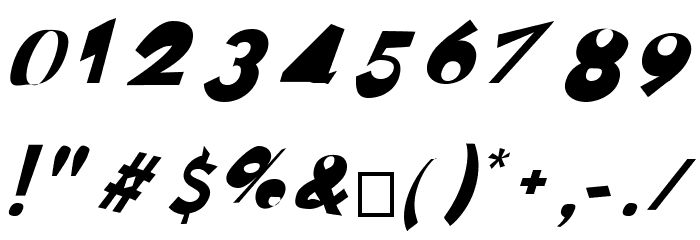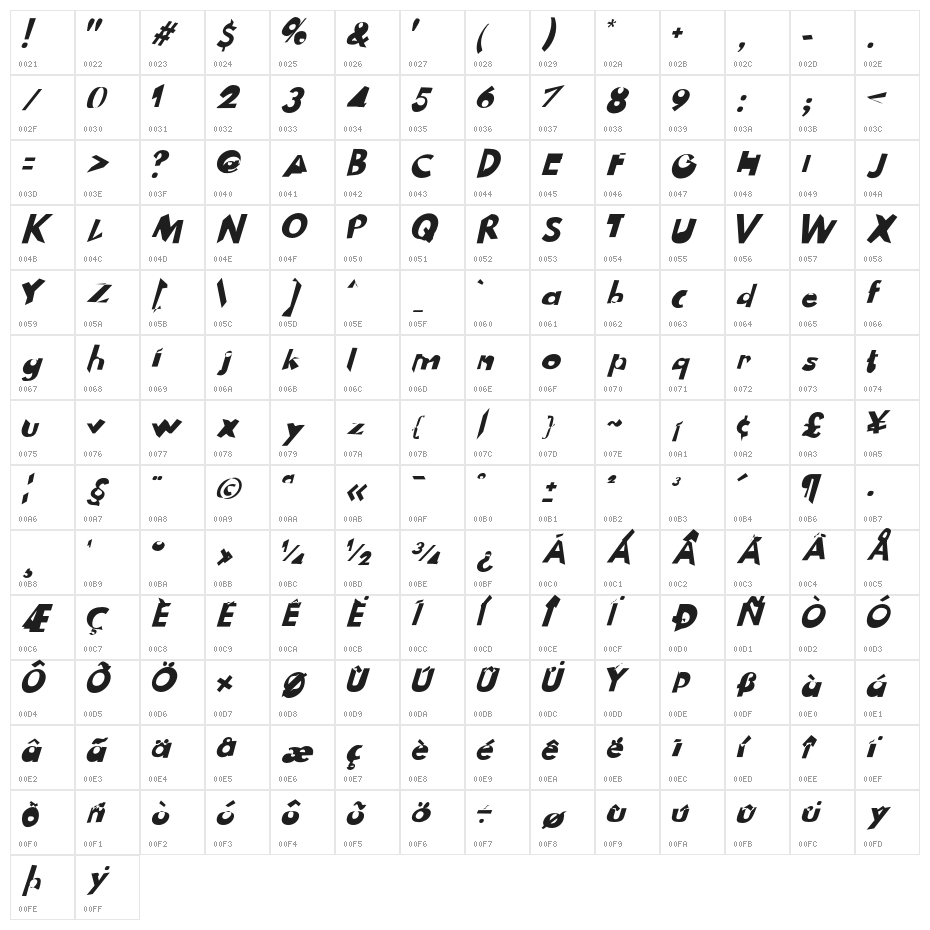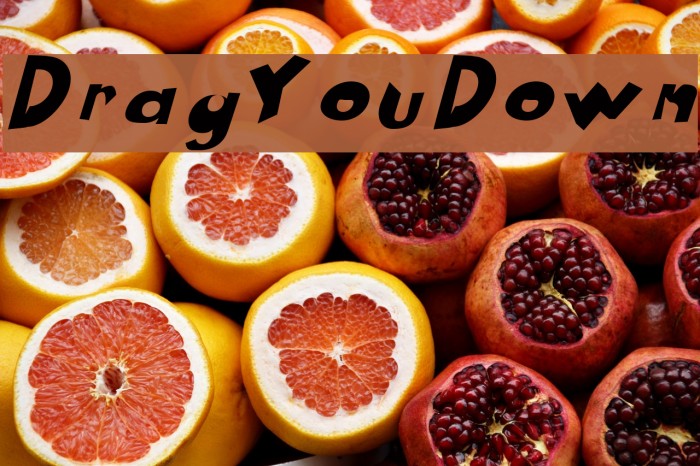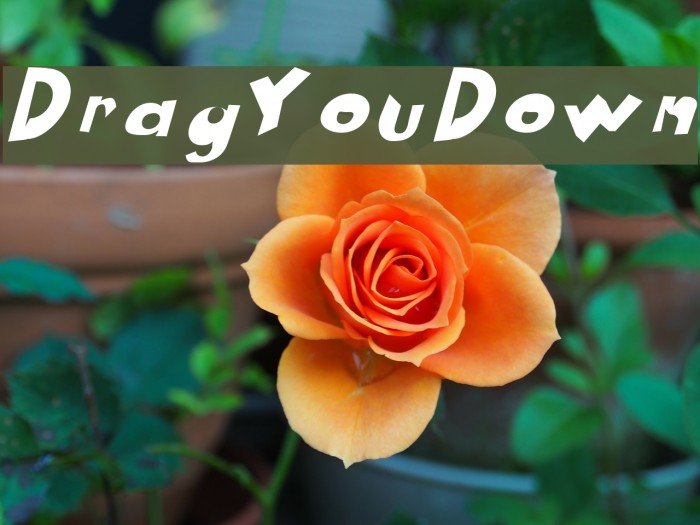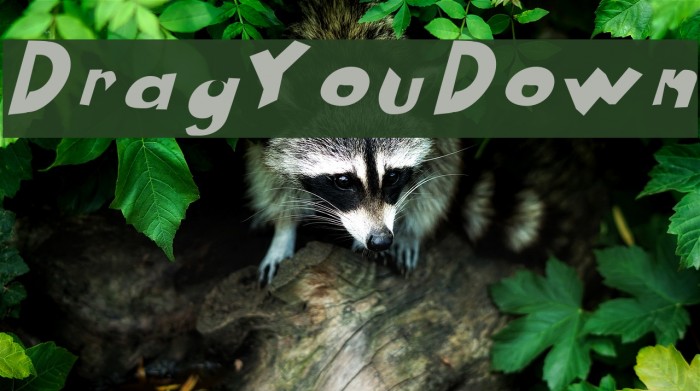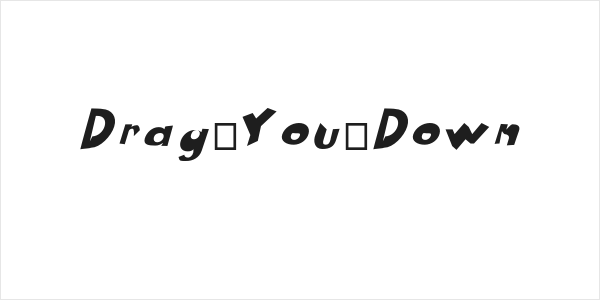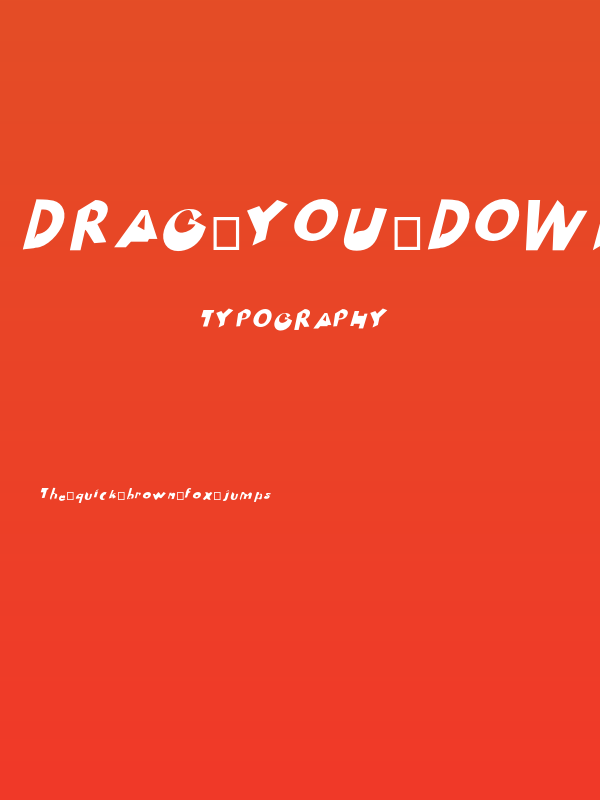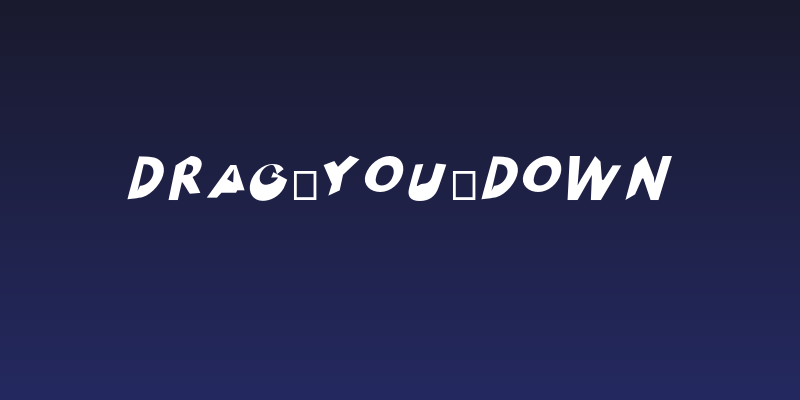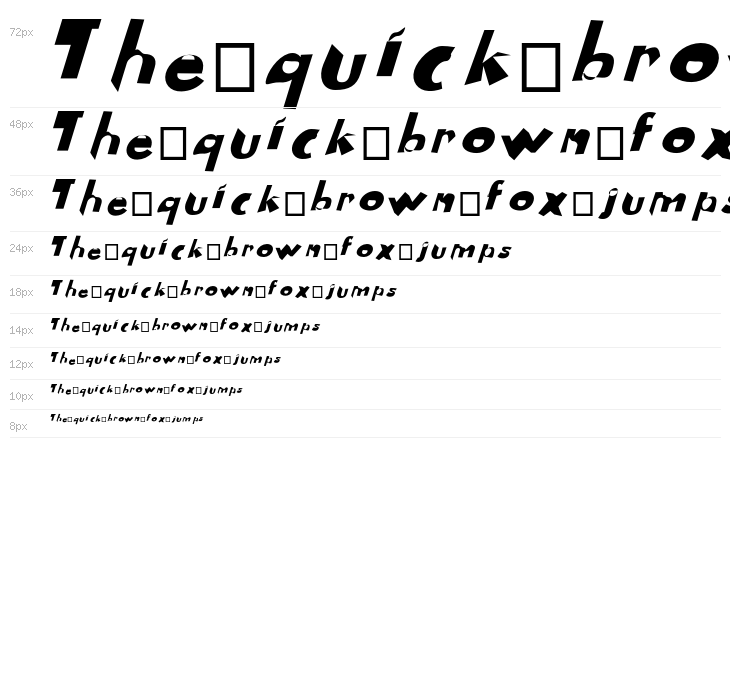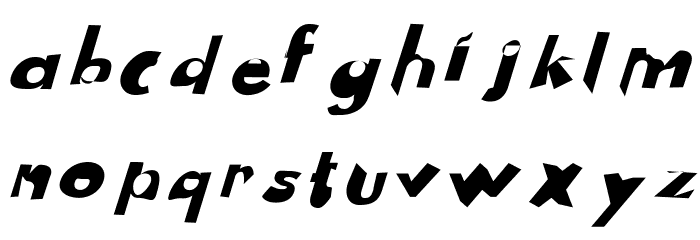
Drag You Down Font
Drag You Down Description
This font features a dynamic and energetic style with a distinct slant, giving it a sense of motion and urgency. The characters are bold and angular, with sharp edges and varying stroke widths that create a striking visual impact. The uppercase letters are particularly prominent, while the lowercase letters maintain the same boldness with a slightly more playful touch. The numerals are consistent with the overall style, offering a cohesive look. Special characters are designed to match the bold and angular theme, making this font suitable for attention-grabbing designs.
| Proposed Projects | Ideal for posters, headlines, branding, and any project requiring a bold and energetic typeface. |